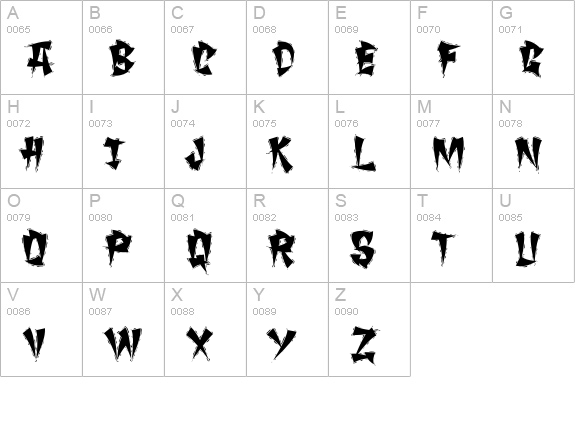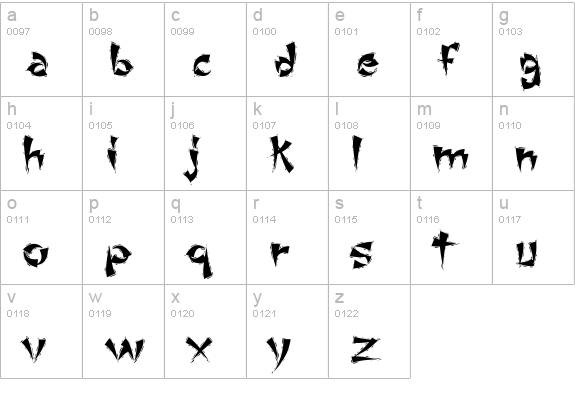
ChangChangWoodcut Font Details
ChangChangWoodcut font is a unique and artistic typeface that captures the essence of traditional woodcut printing. Its bold and handcrafted design gives any project a rustic and authentic feel. This font is perfect for creating eye-catching headlines, posters, and branding materials that demand attention. What sets ChangChangWoodcut font apart is not only its distinctive style but also the fact that it is available for free download at FontsMarket.com. This means you can easily access this stunning font and use it in your projects without any cost. Embrace the charm and character of ChangChangWoodcut font to elevate your designs and make a lasting impression.